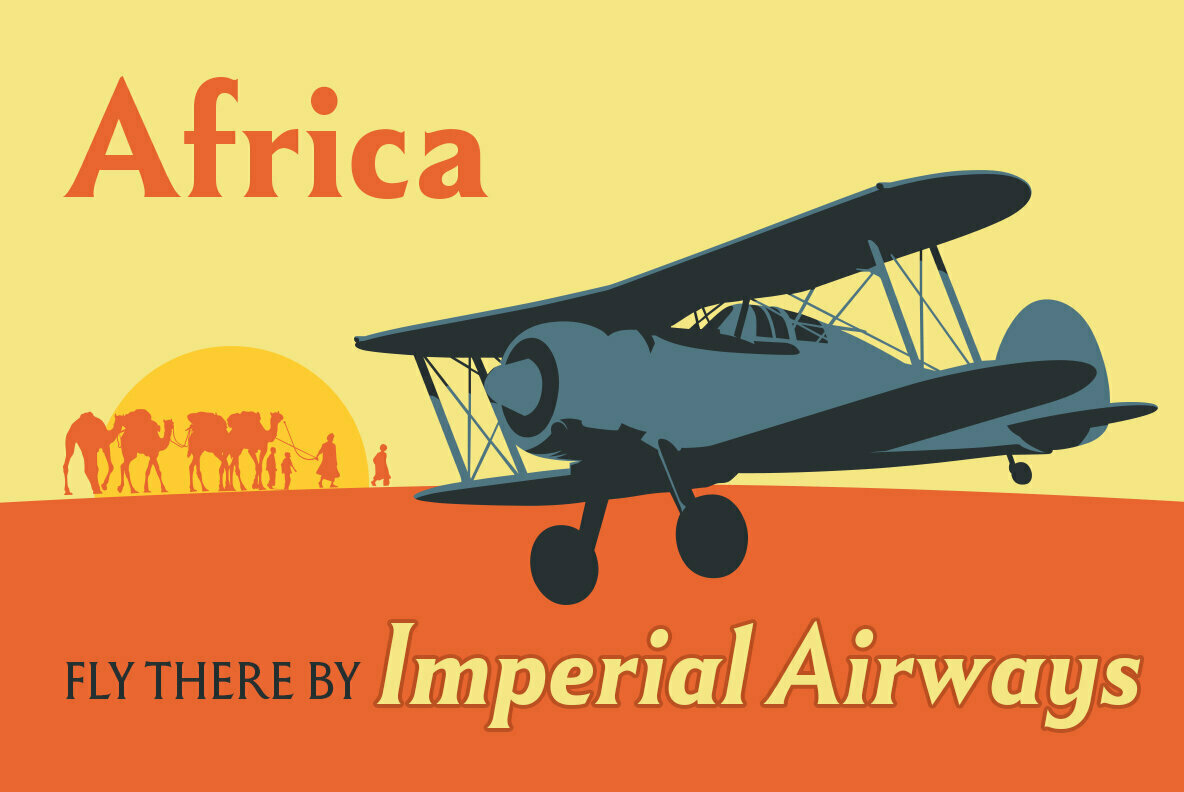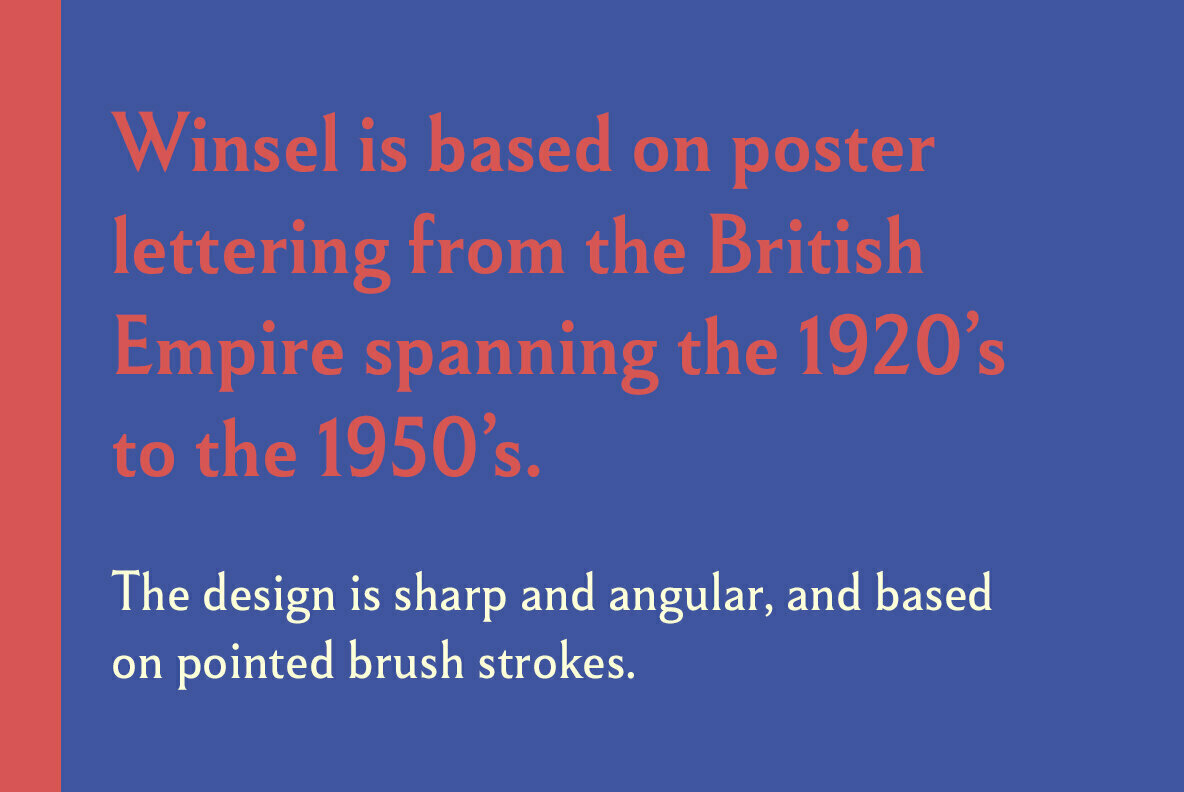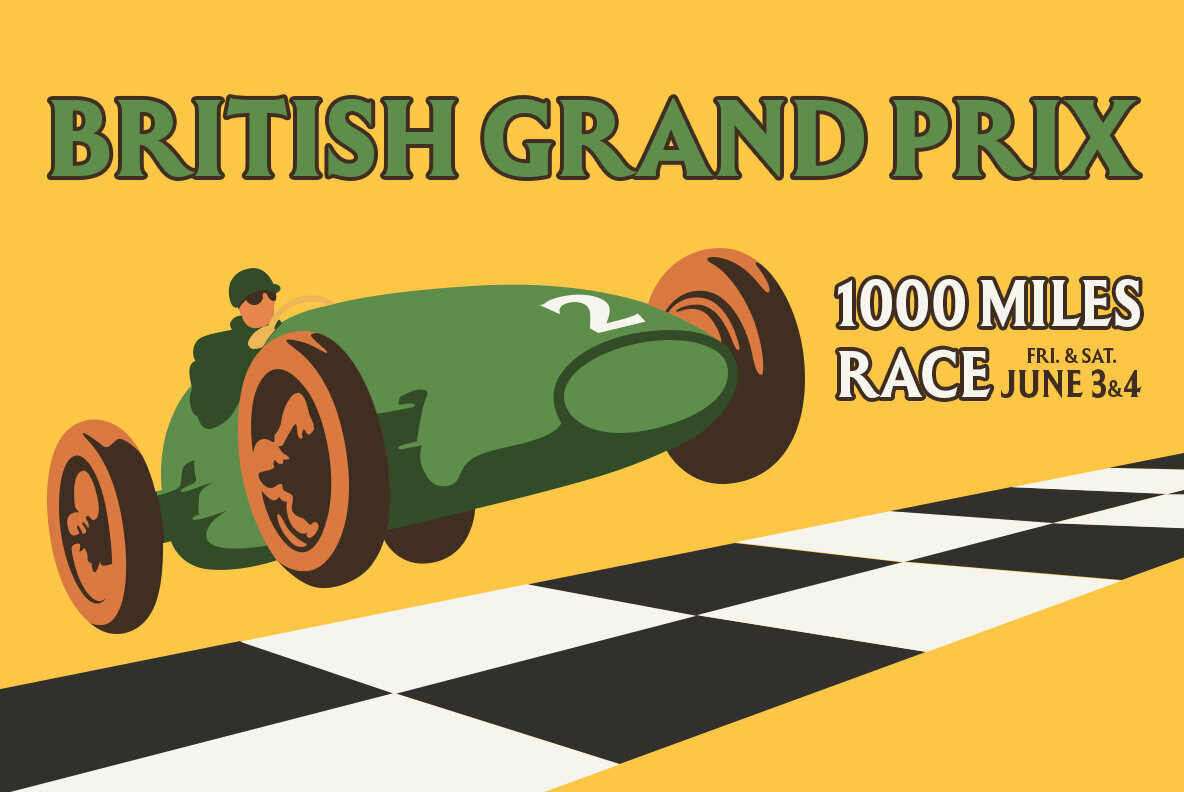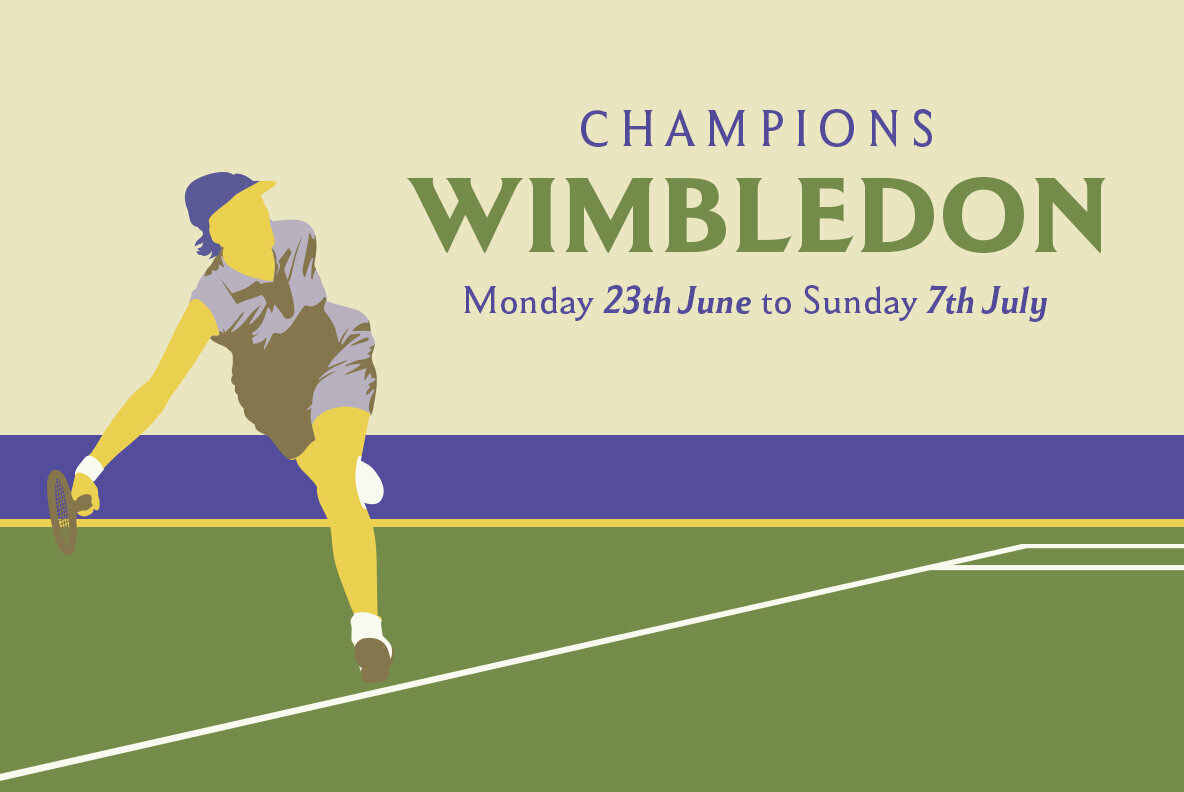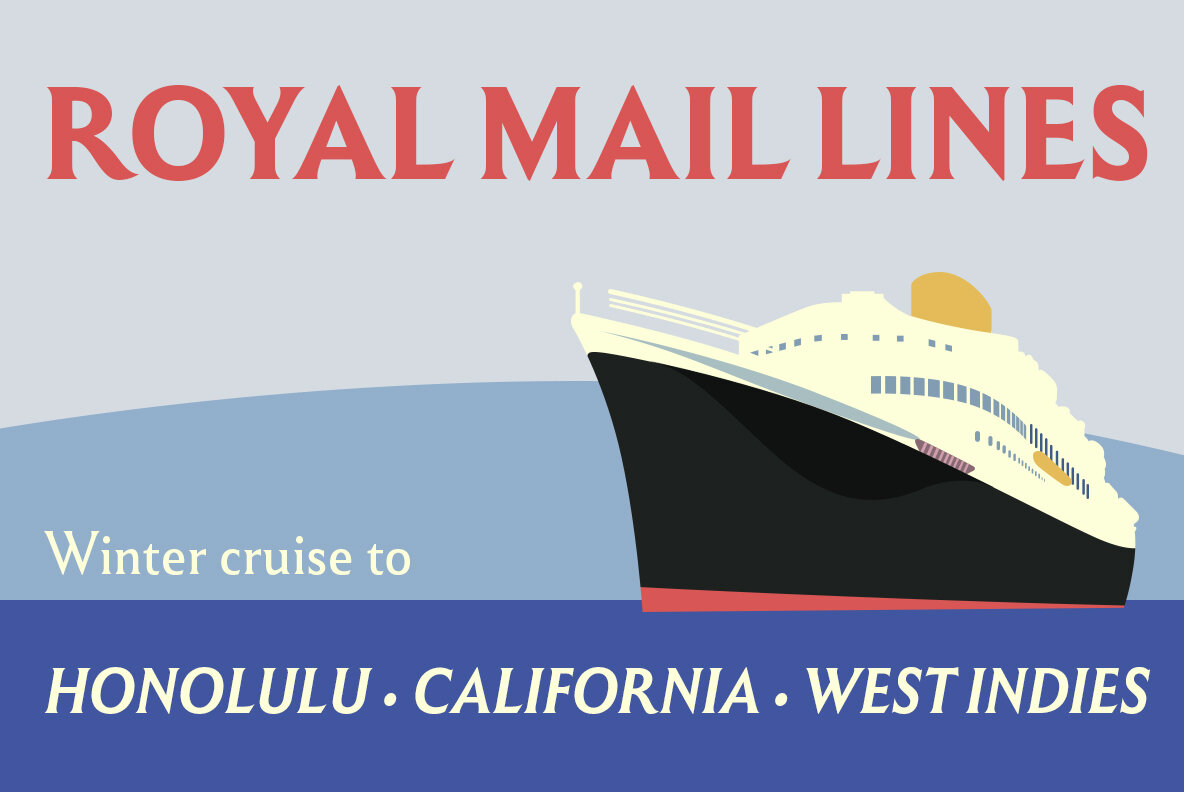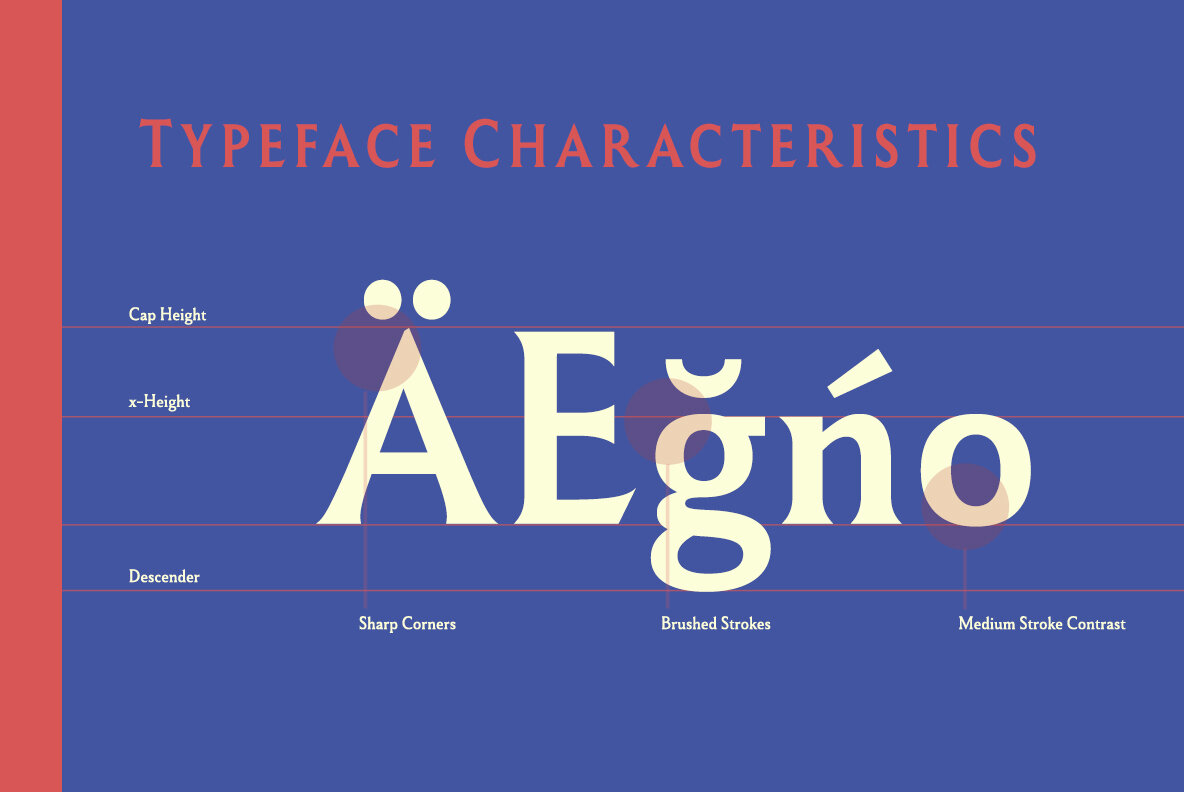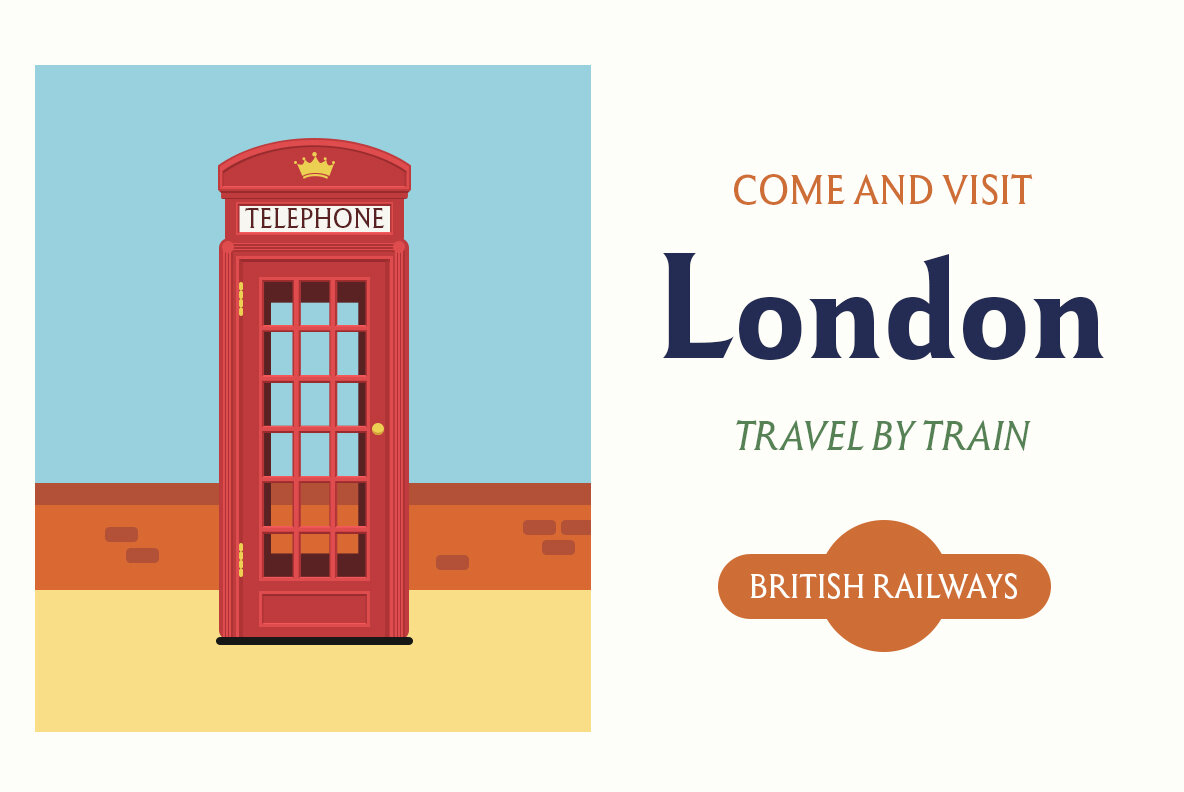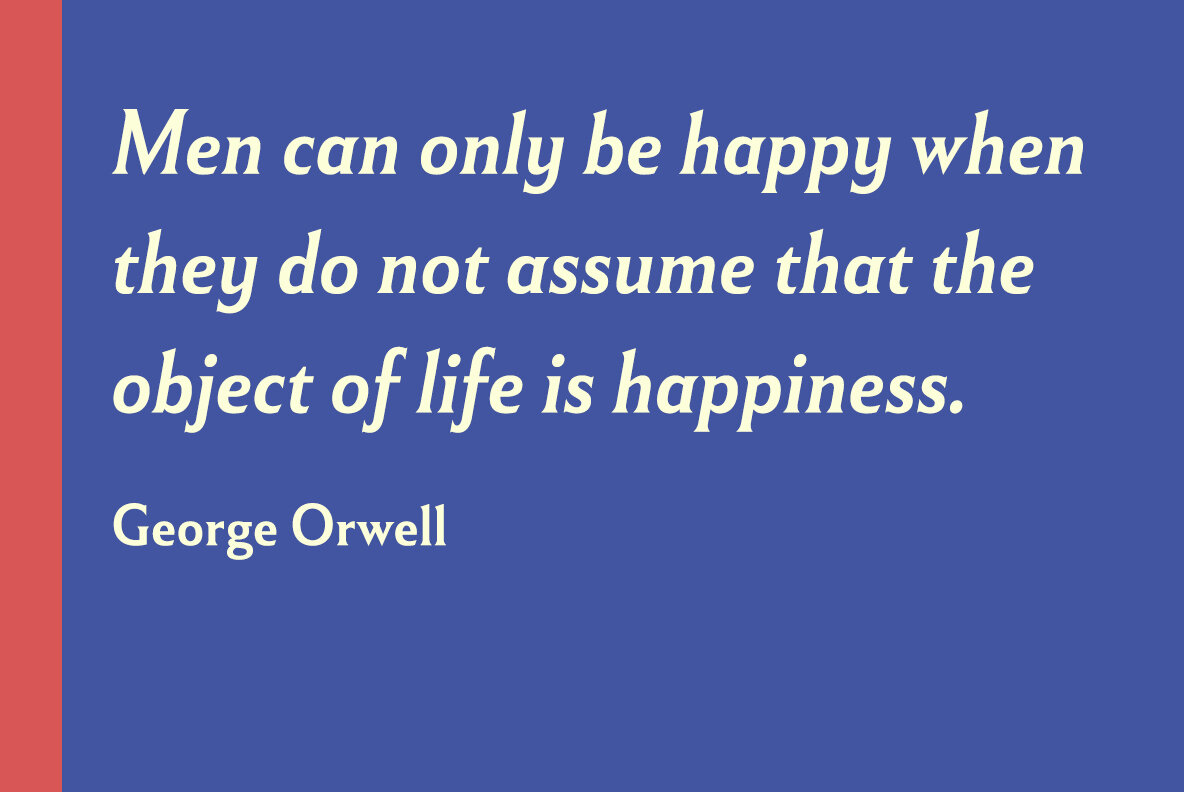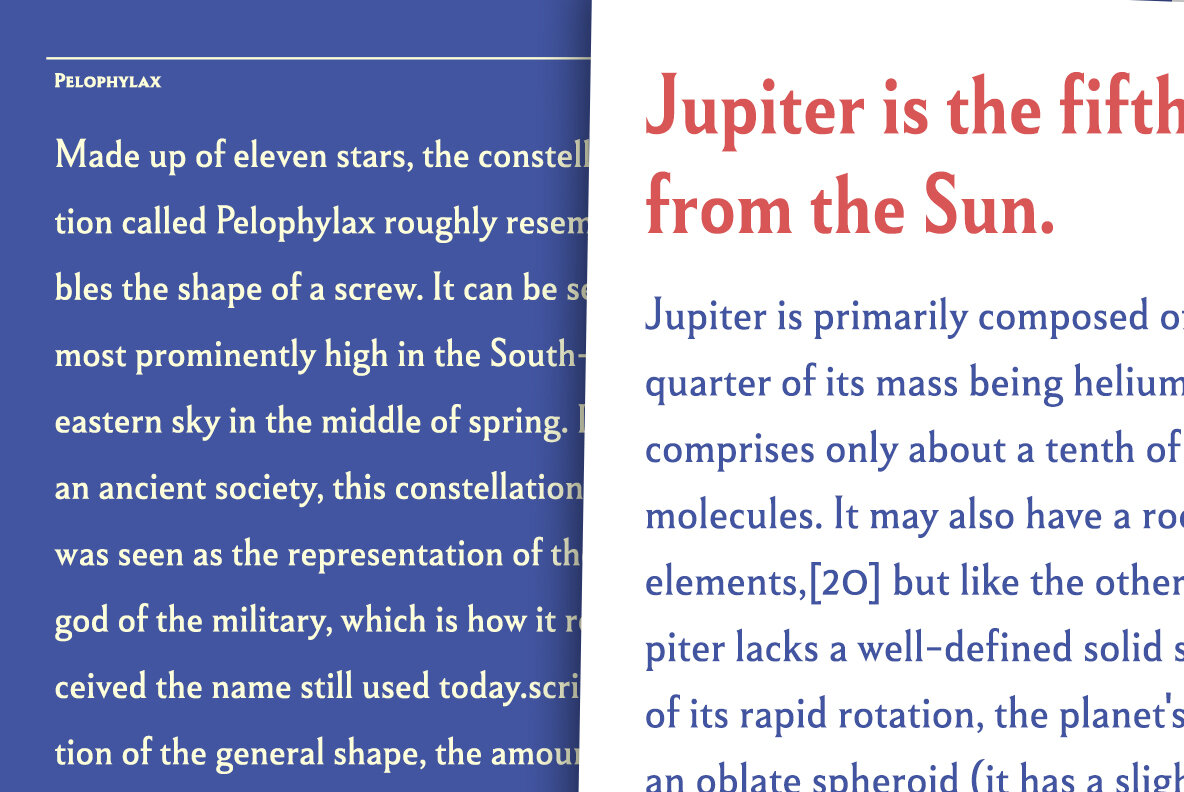
Winsel Font
You stand, poised at the brink. If you do not choose the right, the best typeface, this may be one of the greatest disasters in your history. The whole root and core and brain on which and around which your project is built seems about to perish into an ignominious end.
But I do not for a moment fail to believe that Winsel shall prevail for you. This bold new face, founded from the tested mind of insigne design, will in the moment of need wield for you the full might of its ancestors. The entire strength of the British Empire’s vernacular poster lettering spanning the 1920’s to the 1950’s drives the very heart of every feature and weight this font has to offer.
Winsel’s expanded design is sharp and angular, based on pointed brush strokes. Its thick, sturdy appearance will draw and direct your reader’s mind to the weight and importance of your messages and titling. Within the font’s full forces work a range of styles to achieve victory in the contest ahead: thick weights that are compact and muscular for carrying a heavier load and lighter, finer weights to lead you through your more sensitive operations. It stands equipped with OpenType features, ready to support most European Latin-based languages and providing features such as Small Caps and Titling Caps in all nine of its weights. Well-honed for the task ahead, Winsel has been crafted to ride out the storm of mediocrity and to outlive the merits of inconsequence, if necessary for years, if necessary alone.
There has never been in all the world such an opportunity for you. With Winsel, you shall go on till the end. You shall write on the beaches. You shall write on the landing grounds. You shall write with growing confidence and growing strength in print or on the air. Every morn has brought forth a noble chance. Your chance this day is Winsel.